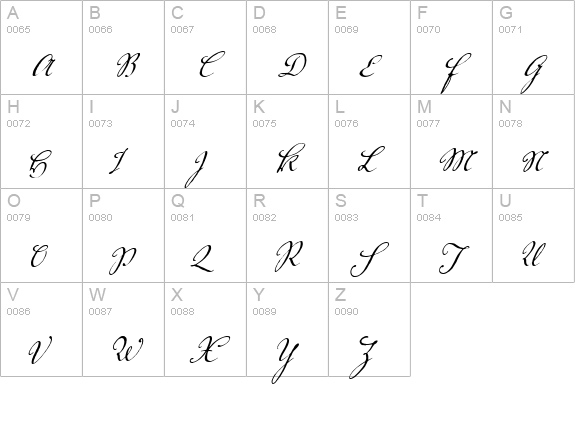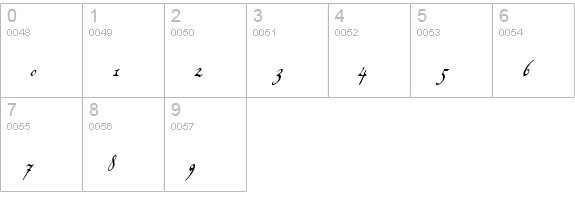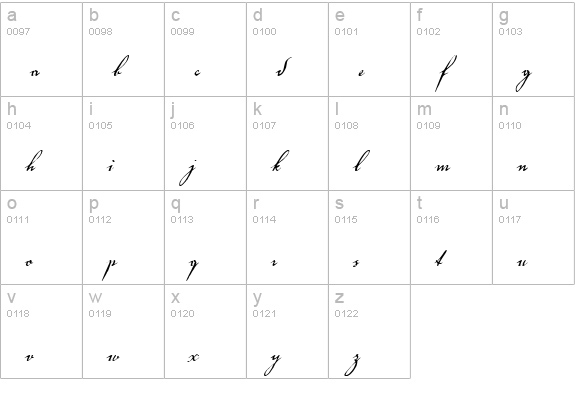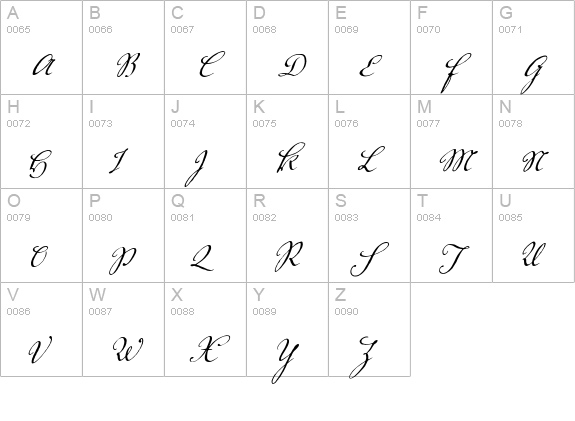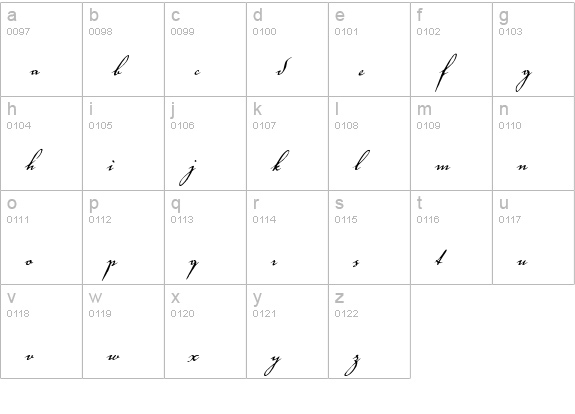
Introducing VolutaScript, a beautifully crafted font that exudes elegance and sophistication. This exquisite typeface is perfect for capturing attention and making a statement in any design project. With its smooth, flowing lines and intricate details, VolutaScript adds a touch of luxury and refinement to any text. VolutaScript is not only visually stunning but also incredibly versatile. Whether you're designing a wedding invitation, a logo, a branding project, or any other creative endeavor, this font will elevate your work and leave a lasting impression. One of the most appealing aspects of VolutaScript is that it is completely free. Yes, that's right! You can enjoy the beauty and versatility of this font without spending a penny. It is freely available to download at FontsMarket.com, a trusted source for high-quality fonts. The designers behind VolutaScript have poured their heart and soul into creating a font that is both visually captivating and easy to use. Every stroke and curve has been meticulously crafted to ensure a seamless and harmonious flow of characters. Whether you're an experienced designer or just starting out, VolutaScript is a font that will inspire and empower you to create your best work. Its timeless elegance and versatility make it a valuable addition to any font collection. Don't miss out on the opportunity to enhance your designs with VolutaScript. Download it for free at FontsMarket.com and experience the beauty and versatility that this font has to offer.